Why “Epic Esports Fonts” Decide Whether Viewers Stay or Scroll
Your stream can be high-skill and high-energy, yet still get passed over because the visuals feel generic. In esports, your typography is the first handshake: it signals speed, precision, and identity in a single frame. This guide curates Epic Esports Fonts that make logos punch harder and overlays read faster—so your brand looks pro even before the first click.
If you’re a designer, a team owner, or a streamer, choosing Epic Esports Fonts is not just aesthetics—it’s conversion. The right type helps thumbnails pop in crowded feeds, keeps lower-thirds readable at 1080p/1440p, and makes a sponsor bar feel premium instead of cheap.
How We Evaluate Epic Esports Fonts (Fast)
- Impact at small sizes: Can it survive mobile thumbnails and busy overlays?
- Motion-friendly forms: Do diagonals and counters still read when animated?
- Brand stretch: Logo wordmark + jersey naming + scoreboard digits.
- Pairing ease: Works with clean UI text (e.g., Montserrat for panels).
Design caveat: Use one hero display face for the brand voice, then pair it with a neutral UI sans for panels/chat—keep the Epic Esports Fonts for punch, not paragraphs.
The Starter Pack: 15 Epic Esports Fonts for Logos & Overlays
1) Exoflash — Futuristic Logo Font
Why it’s epic: Razor-clean geometry for aggressive wordmarks. Great for hero text in stream stingers, team intros, and “Versus” cards. As an Epic Esports Fonts pick, Exoflash shines in high-contrast colorways and metallic FX.
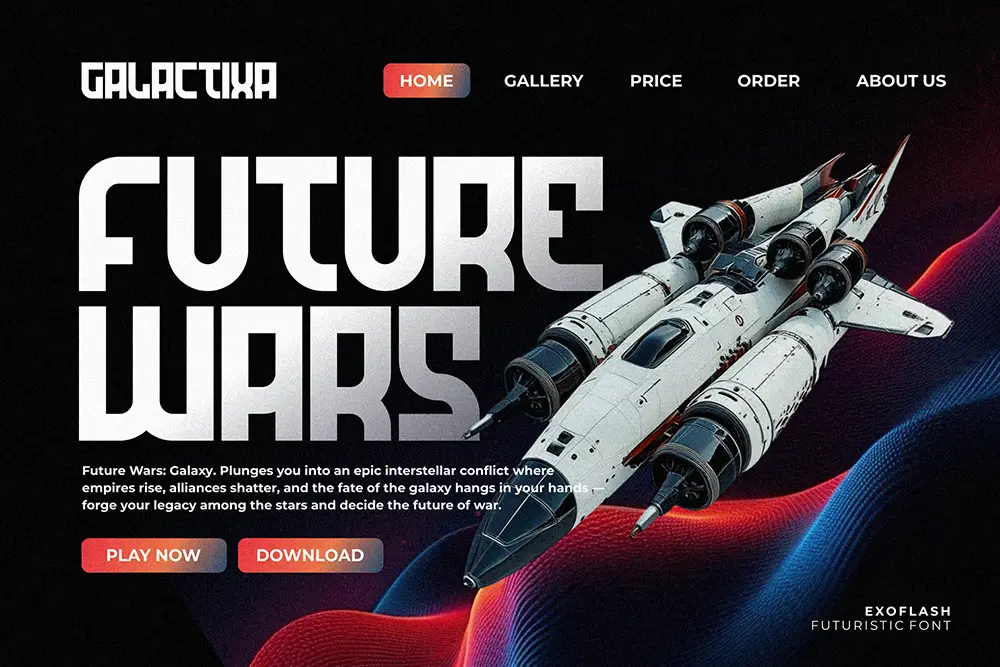
2) Quinoss — Modern Sport Font
Why it’s epic: Athletic stance, tight spacing, and scoreboard confidence. Perfect for jersey names, bracket graphics, and match score bugs.
3) Garuda Extend — Sport Display Font
Why it’s epic: Extended forms = speed. Use for side-by-side team matchups, or an apex wordmark that screams momentum. A core Epic Esports Fonts choice for racing-style identities.
4) Heat Robox — Ultimate Futuristic Font
Why it’s epic: Cyber-edge forms that look incredible with glow or neon FX. Lower-third titles and sponsor slates jump off the screen.
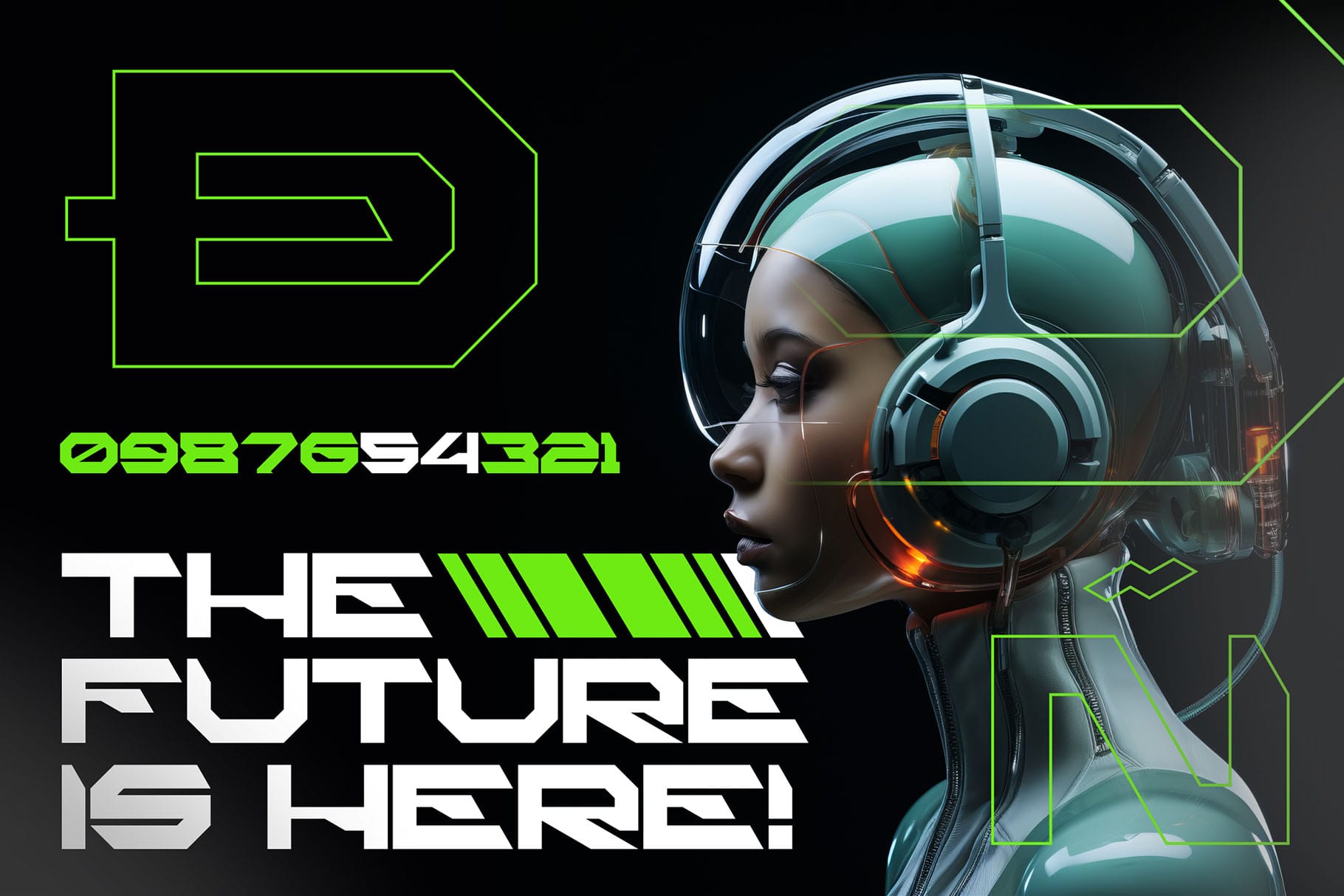
5) Robot Brain — Display Techno Font
Why it’s epic: Digital personality without losing clarity. Excellent for animated text transitions and scoreboard headings.
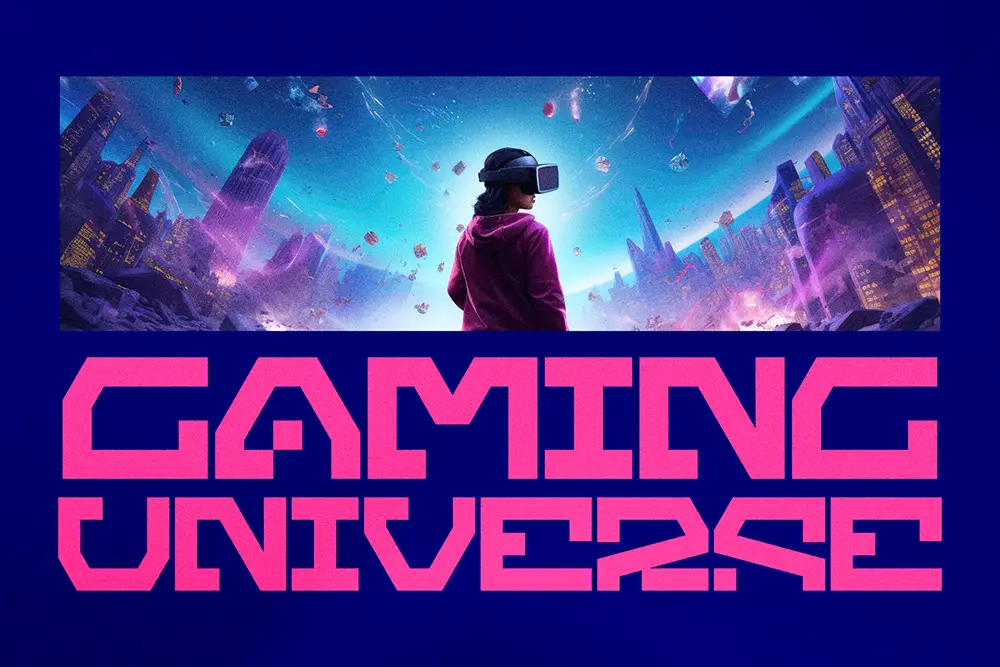
6) Overmars — Futuristic Techno Font
Why it’s epic: Sleek futurism for tech-leaning teams. Pairs nicely with clean UI sans in panels and chat banners.
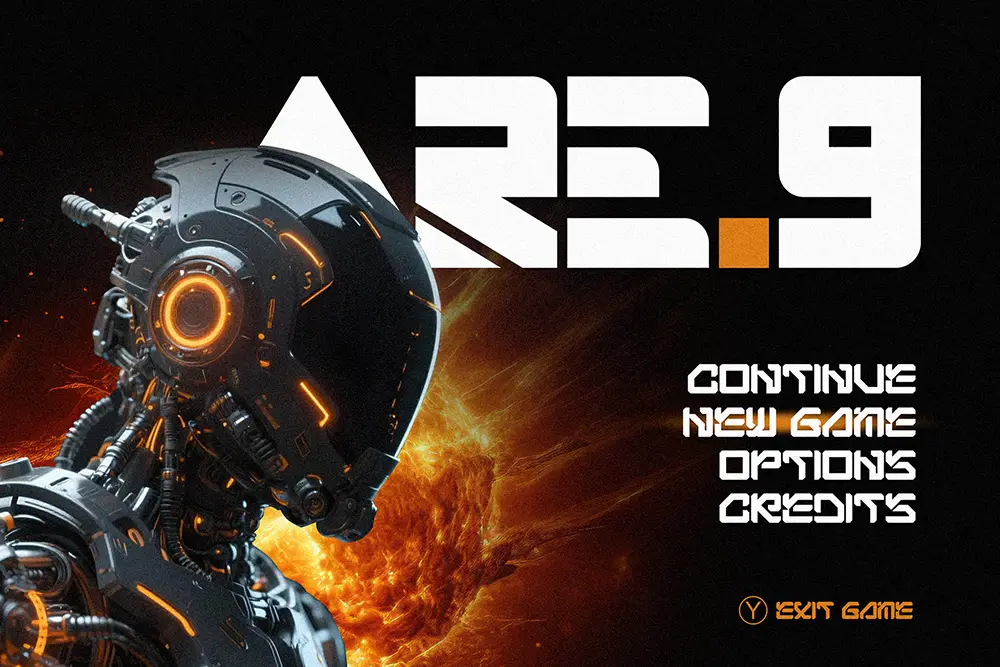
7) Technos — Futuristic Font
Why it’s epic: Upper/lower + alternates give you a flexible system for logo lockups and stream package typography—true Epic Esports Fonts utility.
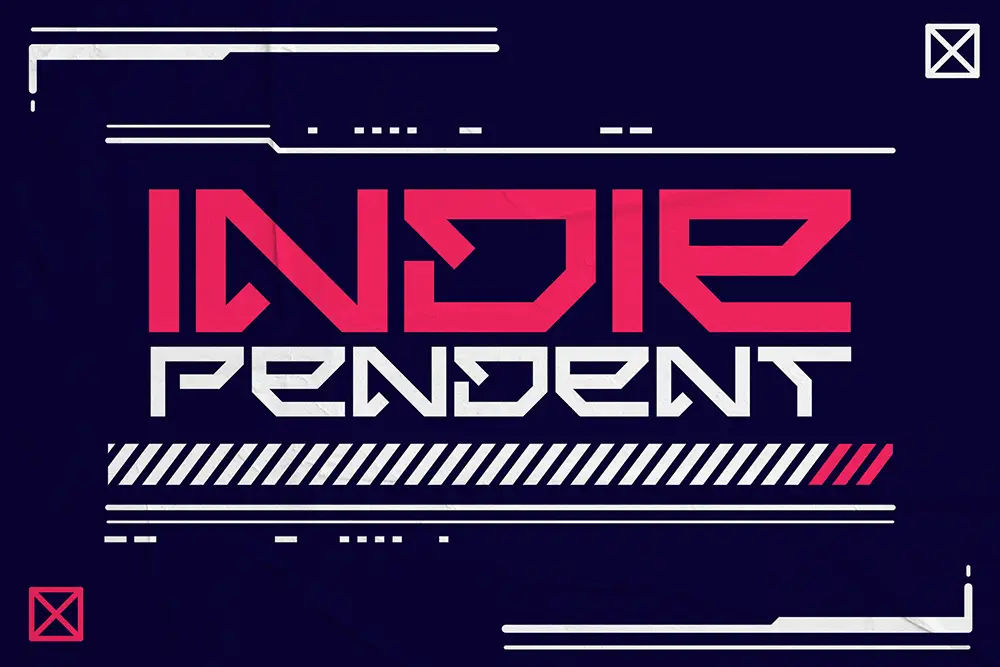
8) Synthetix — Futuristic Techno Font
Why it’s epic: Multiple weights + italics support kinetic motion graphics. Use bold for the logo, light/italic for HUD-style panels.
9) Meta Futura — Futuristic Display Font
Why it’s epic: Minimalist futurism with corporate polish—perfect for teams courting premium sponsors.
10) Neon Strix — Futuristic Display Font
Why it’s epic: Regular + Outline combos are a gift for stream overlays. Stack styles for depth without heavy Photoshop work.
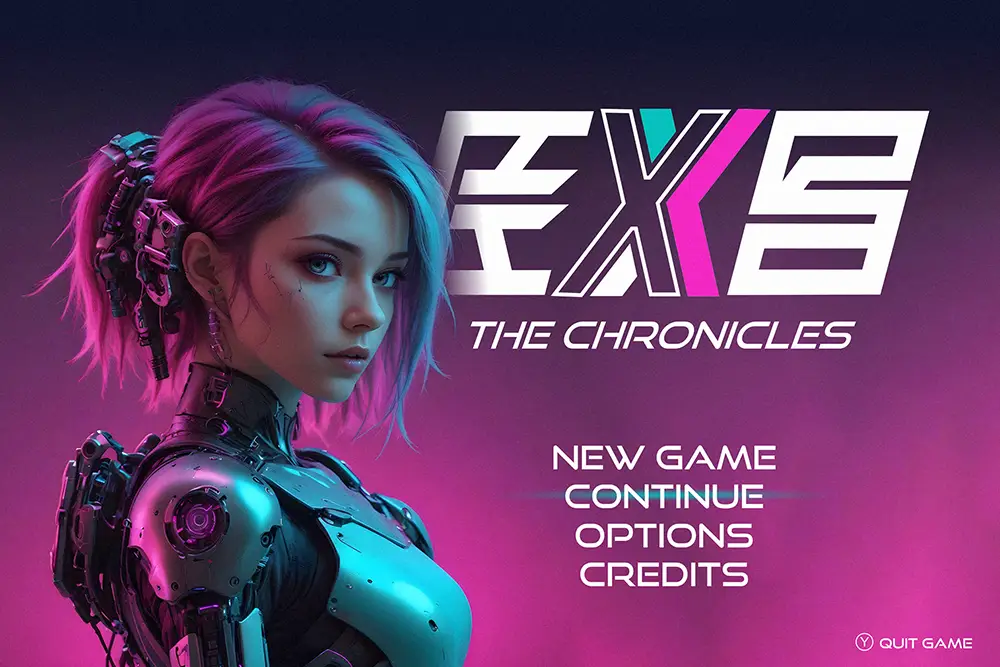
11) Pixel Sparta — Futuristic Display Font
Why it’s epic: Retro-futuristic DNA for indie and arcade-core brands. Use at big sizes for thumbnails that stop the scroll.
12) Traveliner — Energetic Racing Font
Why it’s epic: Built for speed graphics. Perfect for countdowns, lap timers, and highlight reels—an Epic Esports Fonts go-to for racing overlays.
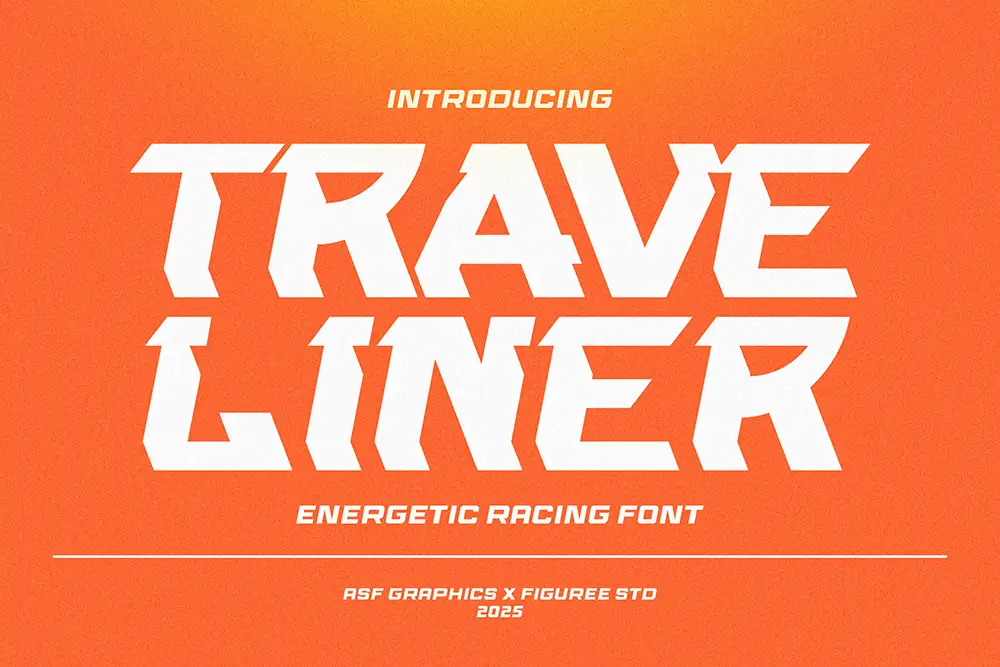
13) Sonic Turbo — Racing Theme Font
Why it’s epic: Slanted, high-velocity shapes announce intensity. Great for transition frames and intermission cards.
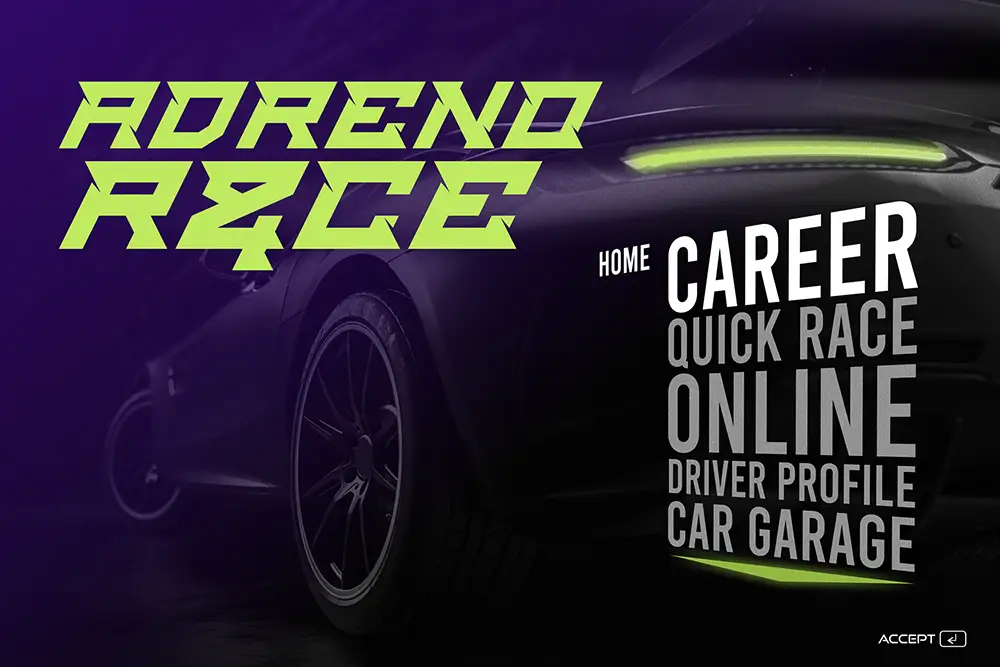
14) Power Strides — Powerful Display Font
Why it’s epic: All-caps domination for team initials and sponsor logos. Use tracking tweaks to control aggression.
15) Dominiums — Display Racing Font
Why it’s epic: Industrial power with textured presence—killer for finals posters, YouTube cover art, and merch mockups built around Epic Esports Fonts.
16. Brake Disc — Energetic Racing Font
Adrenaline-packed form that looks incredible in motion graphics, car wraps, or e-racing banners. A must-have in Epic Esports Fonts collections.
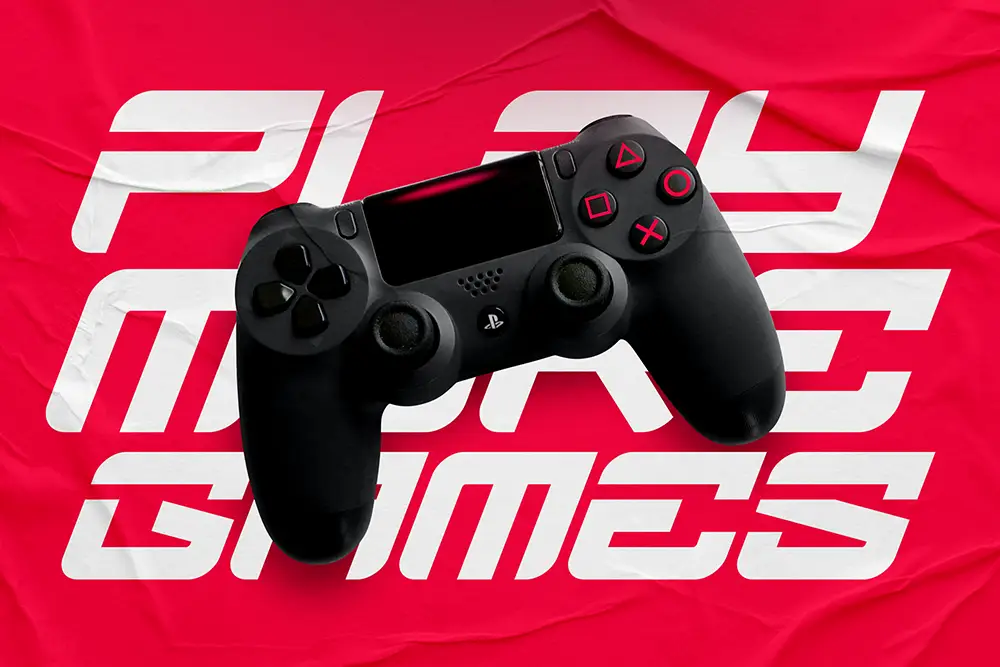
17. Bigs Robotic — Futuristic Display Font
Think mechanical precision meets robotic elegance. Works well for sci-fi teams or mechanical branding.